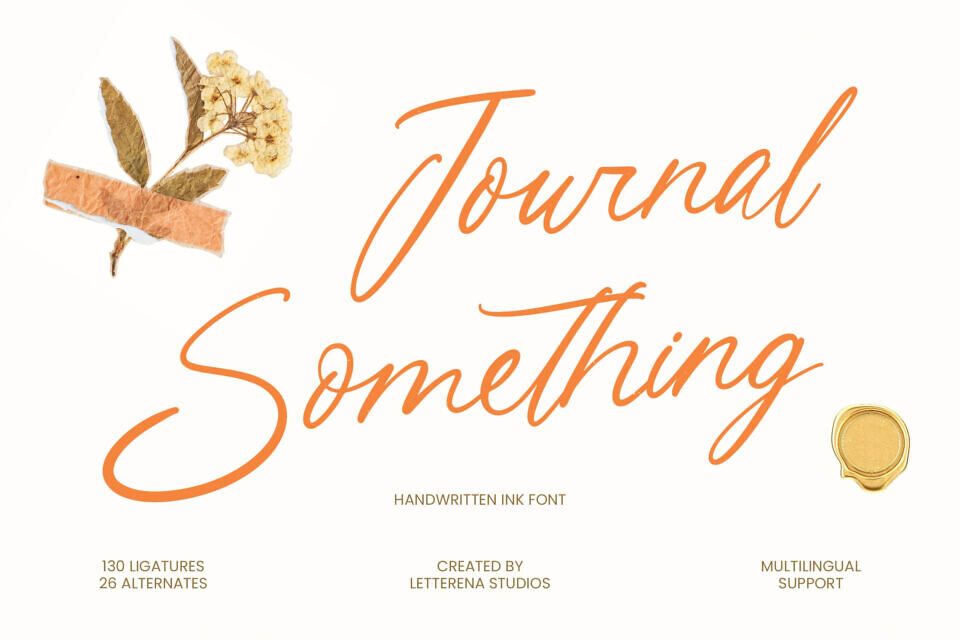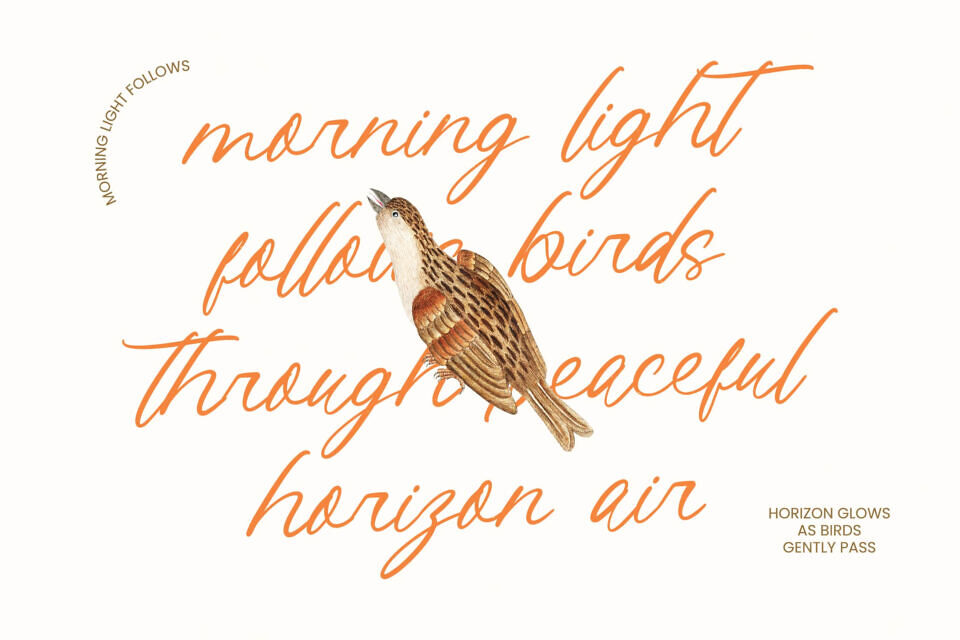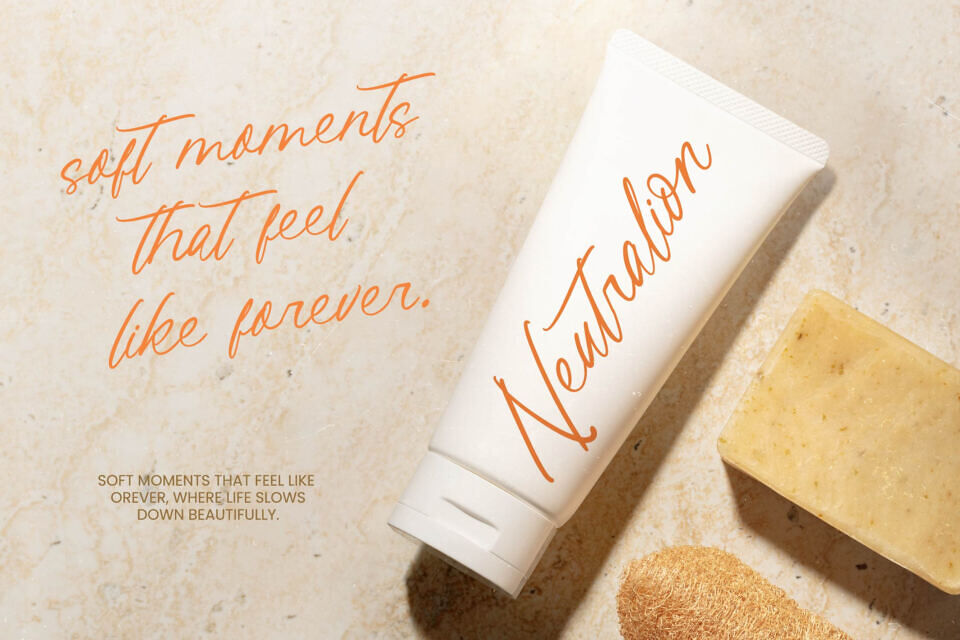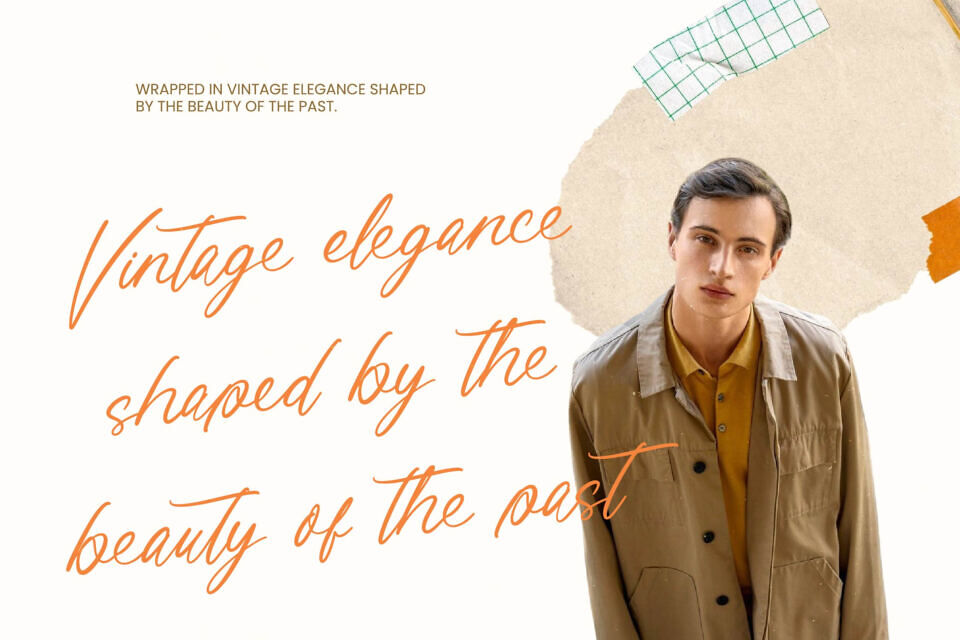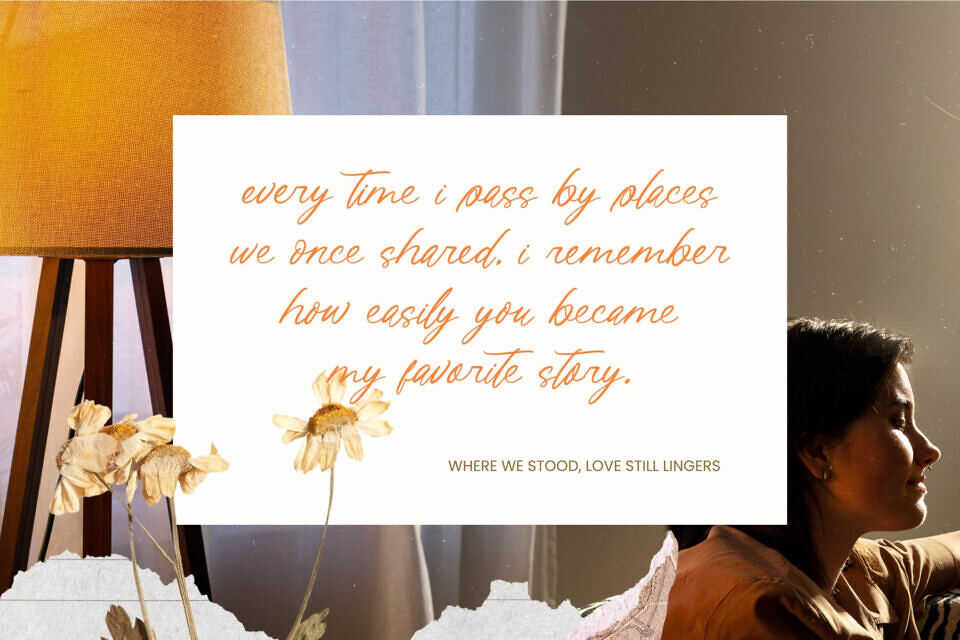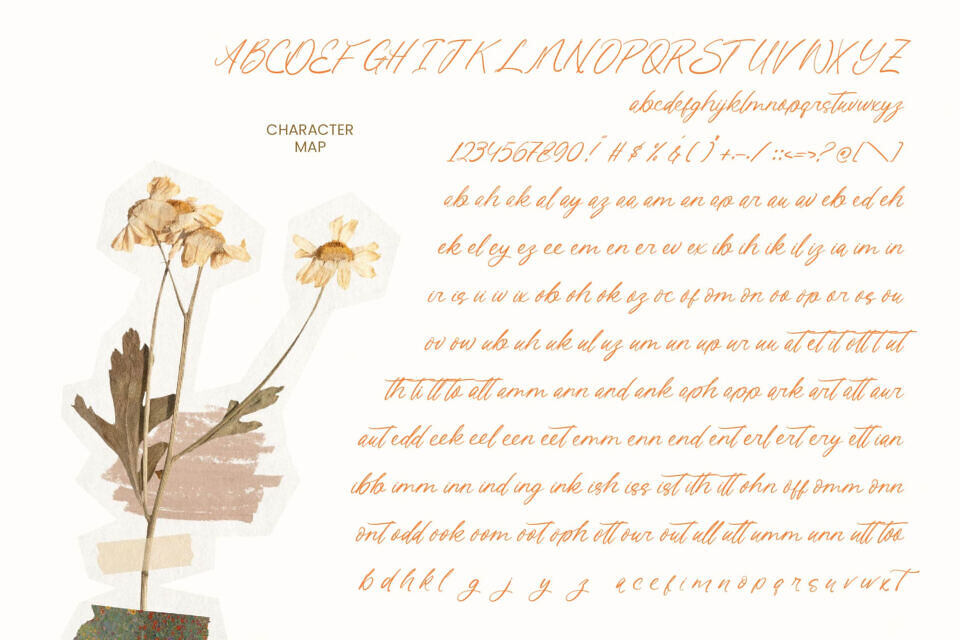
Add a touch of elegance to your creative projects with a handwritten font that exudes authenticity. This masterfully crafted typeface combines traditional and modern design elements, making it perfect for luxury branding, upscale packaging, and editorial layouts.
With extensive multilingual support and customizable features, it’s ideal for global projects, allowing you to convey prestige and intimacy across international borders. Its unique aesthetic makes it suitable for various applications, from wedding invitations to social media content.